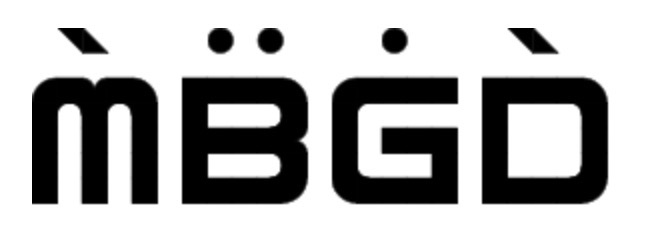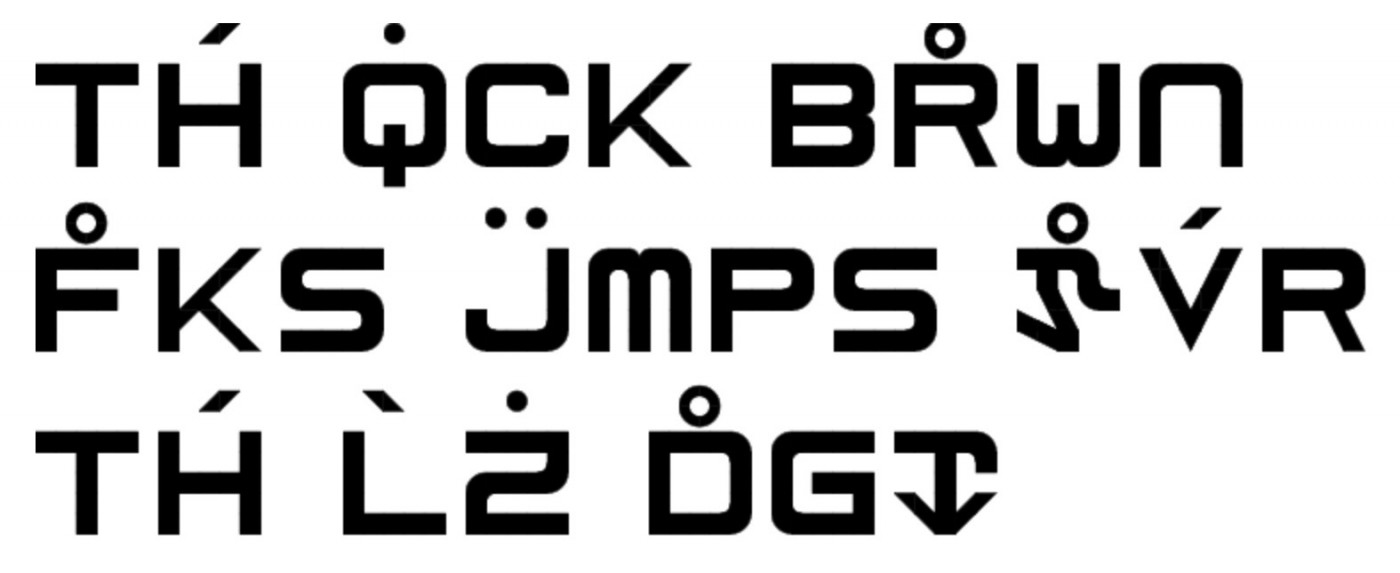
• Syllable starting letter if syllable starts in vowel: capital X—represented as Ean, the iconic 27th letter of the alternate universe alphabet incorporated into reality.
Sentence ending letter: lowercase X—represented as Vrrrpt, the iconic 28th letter of the alternate universe alphabet incorporated into reality.
Font name in Mabugida script
Common pangram in Mabugida script